Medium Brand Identity
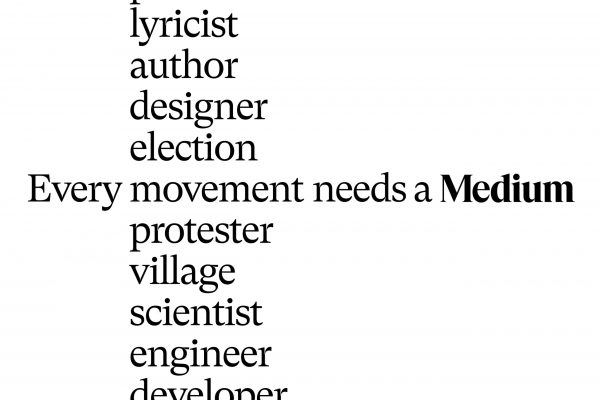
Medium Brand Identity
Category—Identity/Branding
Medium Brand Identity
PRINCIPAL TYPE:
GT Super, Söhne
CONCEPT:
As founder Ev Williams said after the platform launched, ?The ethos behind Medium is one of openness and democracy?like the Internet itself.?
Since their founding, Medium has pursued of that mission, acting as a counterbalance to the downward spiral of online discourse.
This evolution of Medium encourages deeper relationships between readers and writers ? a place for ideas to be challenged and flourish.
New typographic illustrations and a future-inducing new symbol aim to bring readers and writers into discourse. Language becomes a tool for Medium to engage in conversation and speak in service of the great minds on the platform.